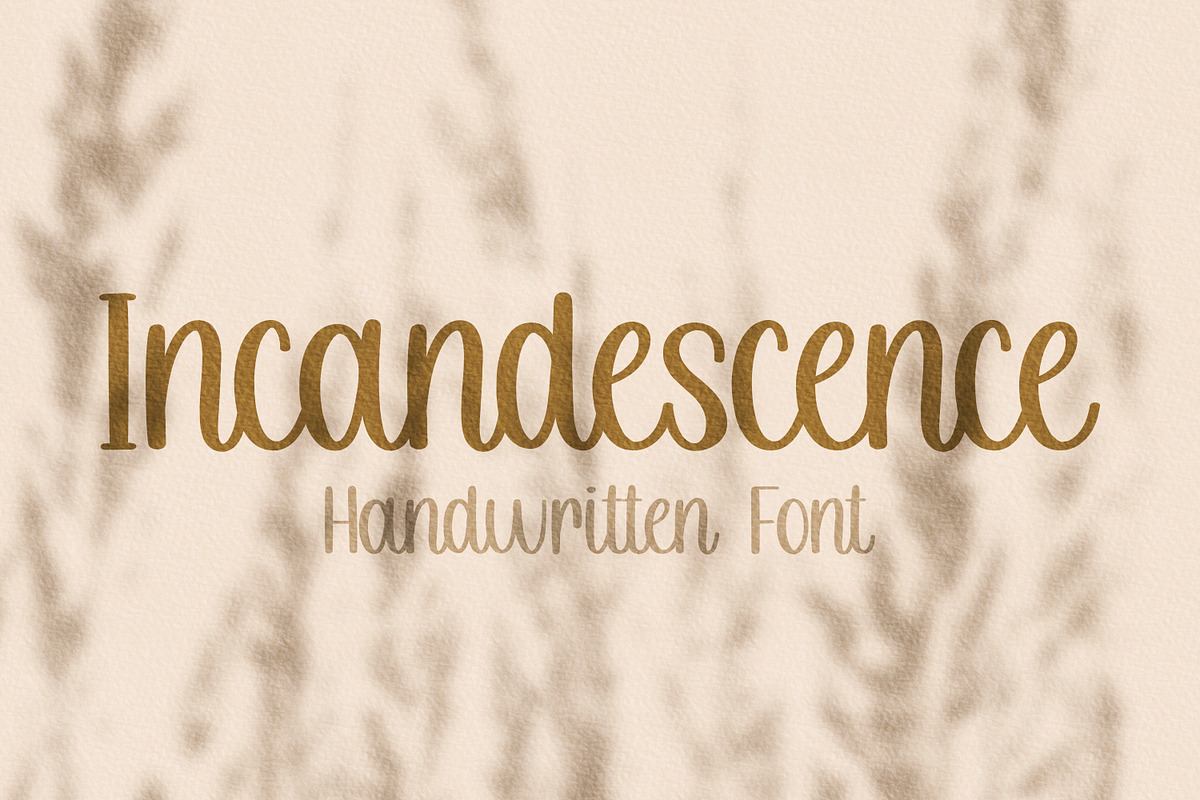
Looking to add a little sparkle and sweetness to your next project? Incandescence Cute Handwritten Font Free Download brings a cheerful and whimsical vibe to any design. With its playful curves and natural hand-drawn style, this font is perfect for greeting cards, children's books, product packaging, planner stickers, and social media posts.
The font feels warm, friendly, and full of personality — just like a handwritten note from a close friend. It includes uppercase and lowercase letters, numerals, punctuation, and supports multiple languages for versatility across different design needs.